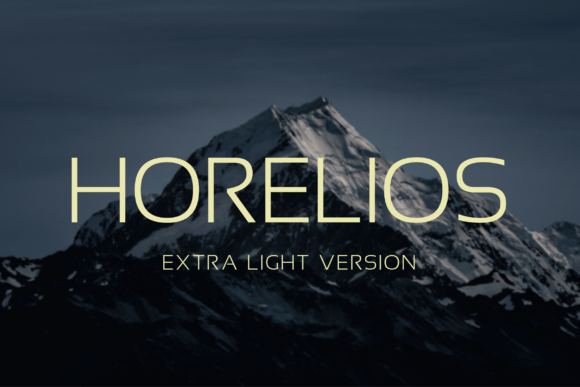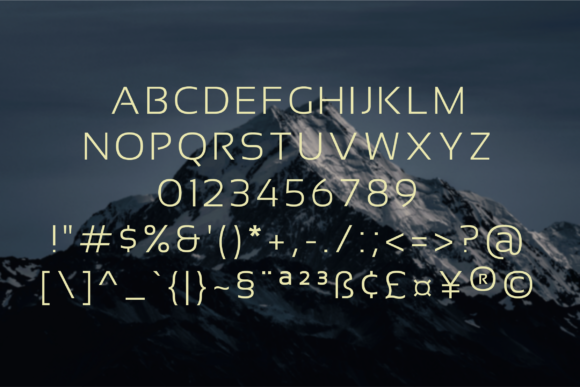
HomeSans Serif FontsHorelios Extra Light Font Sans Serif Fonts Horelios Extra Light Font FacebookXPinterestWhatsApp Horelios Extra Light Font 1 of 2 About Horelios Extra Light Font Horelios is a minimalistic, timeless, and stunning all caps sans serif font that looks beautiful in layouts, headers, web, and many other contexts! DOWNLOAD ON CREATIVE FABRICAThis font is sold and delivered by Creative Fabrica. Font Canyon may earn a commission if you buy through this link. People also explored Pink Mocha Font Maydina Font Aysheea Font Broken Heart Font Moody Font Agustina Font Baby Garland Brogles a Playful Rounded Font Fourier Font 534 0 TagsHorelios Extra Light Font Previous articleHorelios Thin FontNext articleHorelios Light Font LEAVE A REPLY Cancel reply Comment: Please enter your comment! Name:* Please enter your name here Email:* You have entered an incorrect email address! Please enter your email address here Website: Save my name, email, and website in this browser for the next time I comment. Personal Use Free Densmore Personal Use Free Read more about this font Mandara Personal Use Free Read more about this font Stone Cold Personal Use Free Read more about this font Mike Ferrari 16017 Personal Use Free Read more about this font BLOG How to Install and Use Fonts on Windows, macOS, and Web Projects How to Install and Use Fonts on Windows, macOS, and Web Projects Fonts are a crucial part of design and branding. Whether you’re designing a... Top 10 Handwritten Fonts That Elevate Your Designs Top 7 Google Fonts Alternatives for Faster and Privacy-Friendly Web Design (2025) Modern Sans-Serif Fonts That Brands Love in 2025